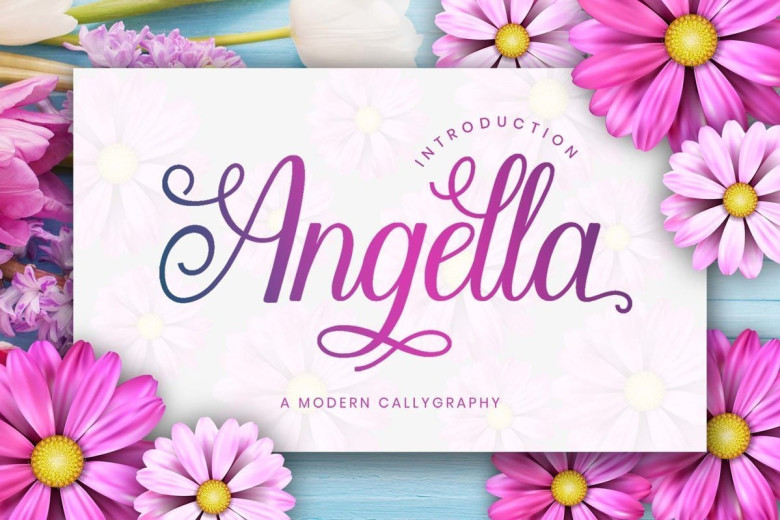
Angella Calligraphy Script Font
Angella Calligraphy Font is a magical modern script typeface carefully created with a touch of elegance. This is a beautiful combination of timeless elegance and authentic calligraphy. It features an incredibly classic style, while still keeping a friendly feel. Angella is the perfect font for making original and outstanding designs.
This font can be used for fashion, salon, invitation, greeting cards, t-shirts, and you can create in many ways by using this font. In addition to regular fonts, this font also has additional features to enhance your creation.